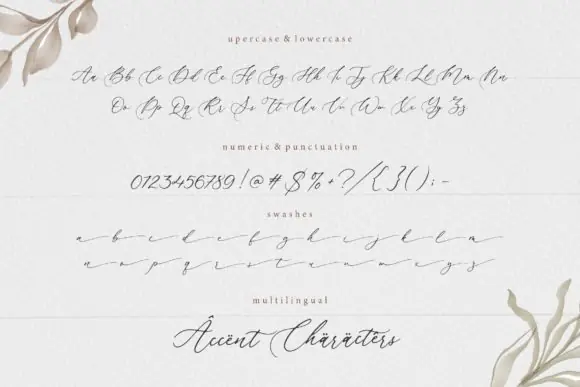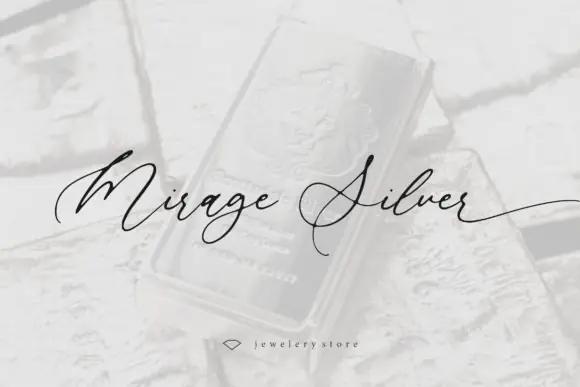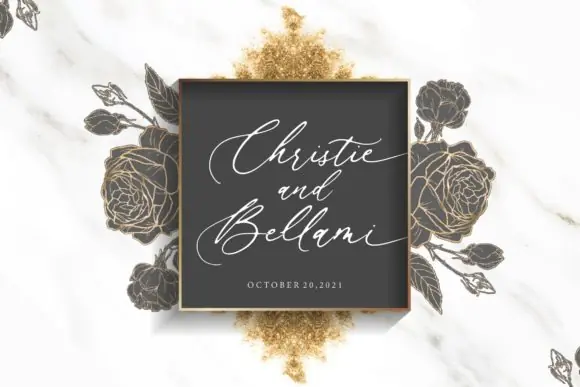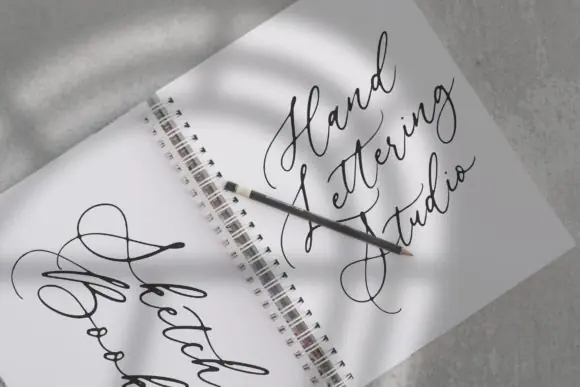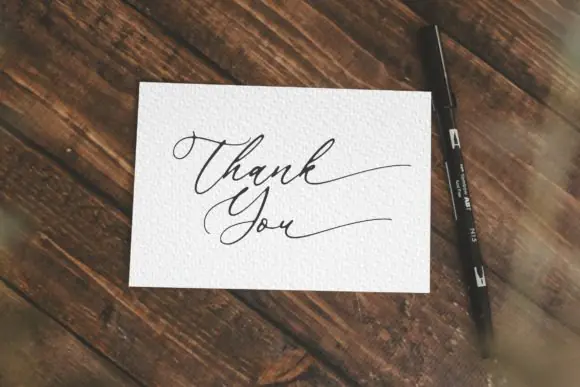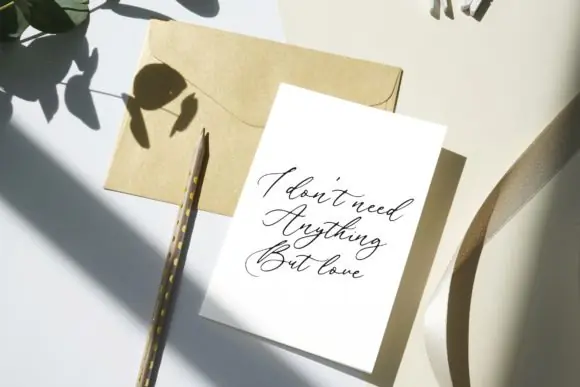
Create graceful, timeless, and beautifully refined designs with Beautica Beautiful Calligraphy Font, an elegant flowing handwritten script font made for projects that need a soft, romantic, and premium calligraphy touch. Its smooth handwritten style and distinct charm make it perfect for creating designs that feel personal, stylish, and memorable.
Beautica is ideal for designers, wedding creators, boutique brands, crafters, digital product sellers, and small business owners who want to add elegance and sophistication to their creative work. Its flowing calligraphy style works beautifully for wedding invitations, logos, branding, stationery, greeting cards, product labels, packaging, social media posts, quote designs, book covers, and romantic artwork.
This font has a timeless visual personality, making it suitable for both modern luxury projects and classic handwritten designs. Whether you are creating bridal stationery, feminine branding, elegant packaging, or beautiful quote art, Beautica helps your typography stand out with charm and refinement.
Design Style:
Beautiful, calligraphy, handwritten, flowing, elegant, romantic, timeless, graceful, feminine, soft, refined, stylish, decorative, and sophisticated.
Use Beautica Beautiful Calligraphy Font to bring a graceful handwritten feel to your designs and create spectacular projects with a timeless calligraphy style.